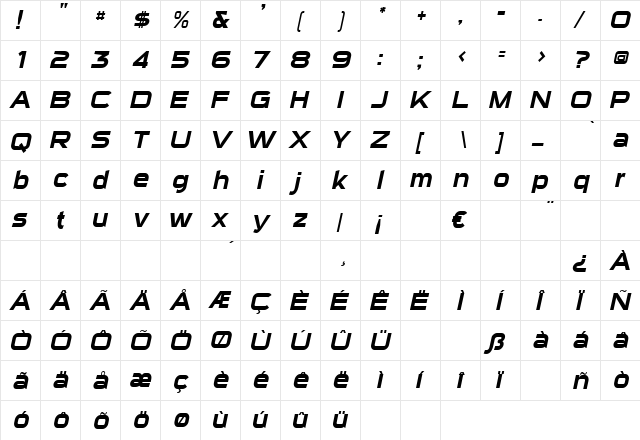
Sui Generis Italic
Design Context for Sui Generis Typeface
Sui Generis is a composed and adaptable typeface that performs quietly and consistently across a wide range of design contexts. Its italic angle brings a sense of urgency and motion to the letterforms.
Pro Tip: Use Sui Generis for emphasis, pull quotes, and subheadings where its slanted energy can add rhythm to the layout.